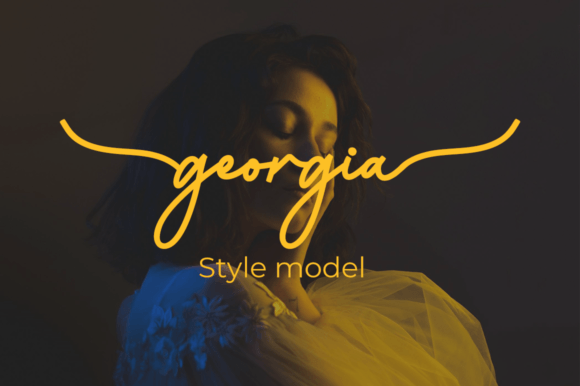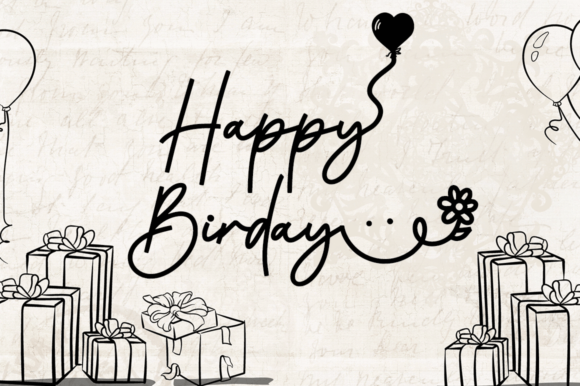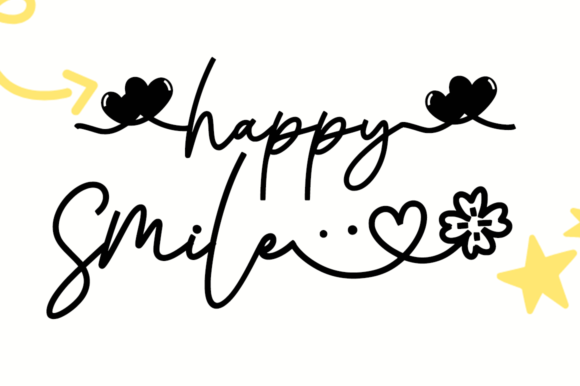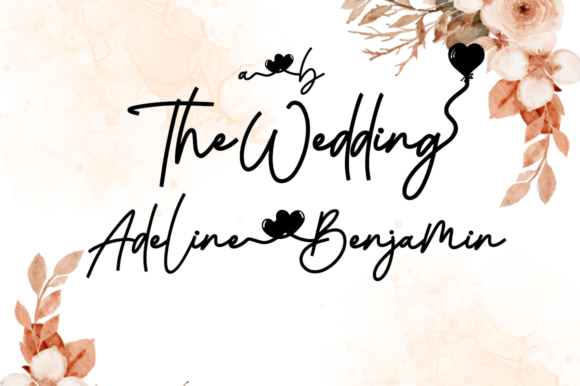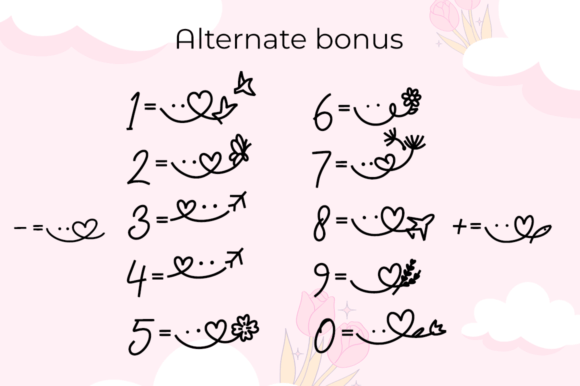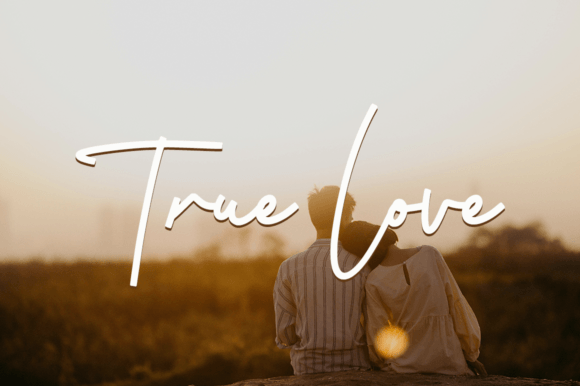
Introducing Balone Font: Elevate Your Designs with Elegance and Charm
In the world of typography, a font can make all the difference in the aesthetic and feel of a design project. For those seeking a stylish and sophisticated touch, Balone Font emerges as an exceptional choice. This beautifully crafted handwritten font combines elegance with a personal touch, making it an ideal selection for designers and crafters aiming to add a refined charm to their work.
The Essence of Balone Font
Balone is not just a font; it’s an expression of style and sophistication. Its fluid, graceful strokes bring a sense of movement and elegance to any design. Each character is meticulously designed to exude a sophisticated charm that can elevate a variety of projects, from chic branding and elegant invitations to fashionable editorial designs.
Key Features of Balone Font
- Fluid and Graceful Strokes: The fluidity of Balone’s strokes gives it a dynamic and elegant feel, perfect for designs that require a touch of sophistication.
- Sophisticated Character: Each letter in Balone is designed with a high level of detail, ensuring that the font stands out for its refined beauty.
- Versatility: Balone’s elegant and personal touch makes it versatile for use in various design projects, including branding, invitations, editorial designs, and more.
- Easy to Read: Despite its elegant and stylish appearance, Balone maintains a high level of readability, making it suitable for both headings and body text.
Applications of Balone Font
The versatility of Balone Font makes it suitable for a wide range of applications. Here are some of the ideal uses for this beautiful font:
- Chic Branding: For businesses looking to establish a sophisticated and elegant brand identity, Balone can be used in logos, business cards, and marketing materials.
- Elegant Invitations: Whether it’s a wedding invitation, a birthday party, or any other special event, Balone adds a touch of elegance and personal charm.
- Fashionable Editorial Designs: For fashion bloggers, magazine editors, and publishers, Balone can enhance the aesthetic appeal of editorial designs, making them stand out.
- Digital and Print Media: Suitable for use in both digital platforms and print media, Balone can be a valuable addition to any designer’s font collection.
Tips for Using Balone Font Effectively
To maximize the impact of Balone Font in your designs, consider the following tips:
- Pair with Complementary Fonts: For optimal results, pair Balone with simpler fonts to create contrast and ensure readability.
- Adjust Letter Spacing: Tweaking the letter spacing can enhance the flow and elegance of your text.
- Experiment with Sizes: Playing with different font sizes can add hierarchy and emphasis to your design.
- Utilize Font Variations: If available, use different variations of Balone to add diversity to your design without compromising its cohesive look.
Balone Font is a stylish and elegant handwritten font that can add a personal touch of sophistication to any design project. Its fluid strokes, sophisticated character, and versatility make it a valuable asset for designers and crafters looking to elevate their work. Whether you’re creating chic branding, elegant invitations, or fashionable editorial designs, Balone can enhance your projects with its refined beauty and charm. Embrace the elegance and make your designs stand out with Balone Font.